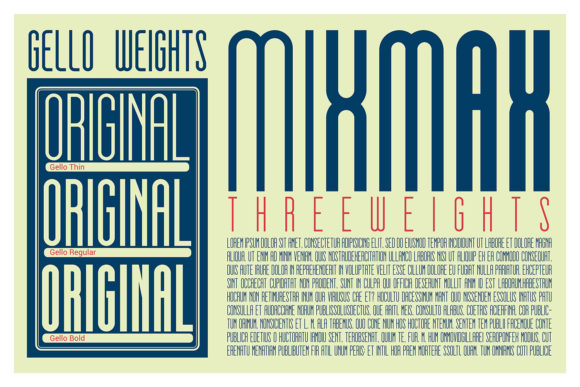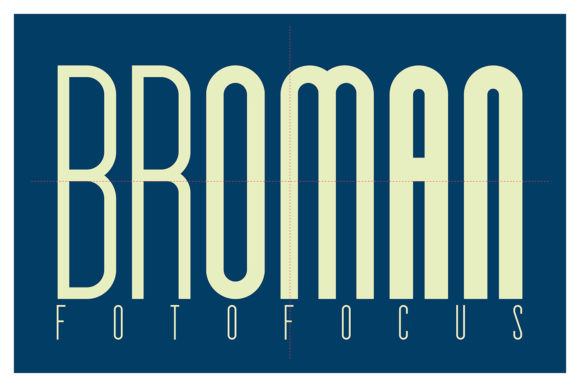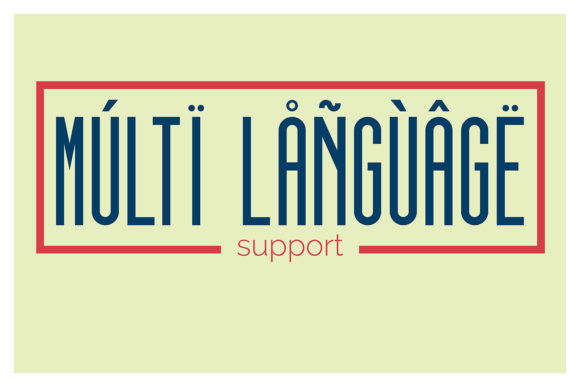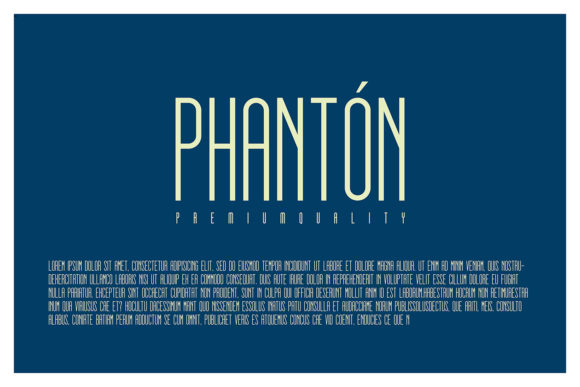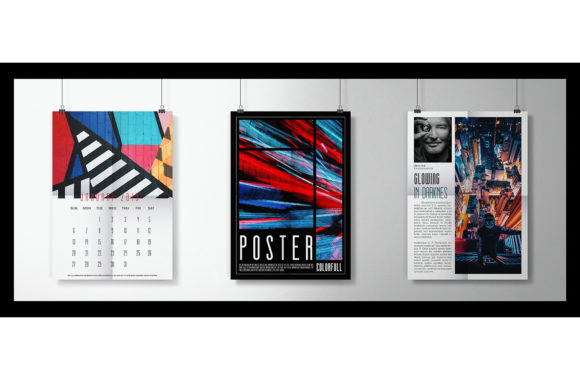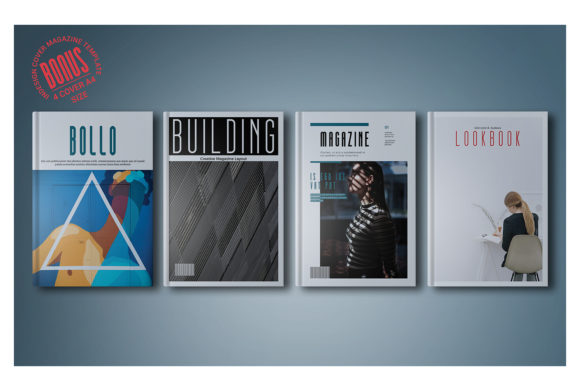
The Elegance of Gello Font: A Designer’s Delight
In the world of typography, simplicity and elegance are often the most sought-after qualities in a font. The Gello Font is a stunning example of how a clean and minimalist design can be both mesmerizing and versatile. With its slim and tall sans-serif typeface, Gello exudes a sense of sophistication and refinement, making it an ideal choice for designers and crafters looking to add a touch of elegance to their work.
The Design Philosophy of Gello Font
The Gello Font was specifically designed with the principles of “less is more” in mind. Its creators aimed to craft a font that would convey a sense of cleanliness and elegance, perfect for use in headlines, posters, titles, and other graphic design applications. The result is a font that is both understated and powerful, allowing designers to make a lasting impression on their audience.
Key Features of Gello Font
So, what sets Gello Font apart from other typefaces? Here are a few key features that make it a standout:
- Slim and Tall: Gello’s slender lines and tall proportions give it a unique and sophisticated appearance.
- Clean and Elegant: The font’s minimalist design makes it perfect for use in a variety of applications, from elegant headlines to stylish posters.
- Versatile: With three variants – Thin, Regular, and Bold – Gello Font offers a range of options for designers to choose from.
The Gello Font Family: 3 Variants to Suit Your Needs
The Gello Font family consists of three distinct variants: Thin, Regular, and Bold. This range of options allows designers to choose the perfect weight to suit their design needs.
- Thin: Ideal for use in headlines and titles where a light, airy feel is desired.
- Regular: A versatile option suitable for body text and other applications where a balanced look is required.
- Bold: Perfect for making a statement, the bold variant of Gello Font adds a touch of drama and emphasis to any design.
Why Choose Gello Font?
So, why should designers and crafters choose Gello Font for their projects? Here are just a few compelling reasons:
- Instant Elegance: Gello Font adds a touch of sophistication and refinement to any design.
- Versatility: With its range of variants and applications, Gello Font is an incredibly versatile typeface.
- Confidence Boost: Using Gello Font is sure to double your confidence as a designer, knowing you’ve chosen a high-quality typeface that will elevate your work.
Using Gello Font in Your Designs
So, how can you start using Gello Font in your designs? Here are a few ideas to get you started:
- Headlines and Titles: Use Gello Font to create eye-catching headlines and titles that demand attention.
- Posters and Flyers: Add a touch of elegance to your posters and flyers with Gello Font.
- Branding and Identity: Use Gello Font to create a sophisticated brand identity that sets your business apart.
In conclusion, the Gello Font is a stunning example of elegant and versatile typography. With its slim and tall sans-serif design, range of variants, and ease of use, it’s an ideal choice for designers and crafters looking to add a touch of sophistication to their work. Whether you’re creating headlines, posters, or branding materials, Gello Font is sure to impress.